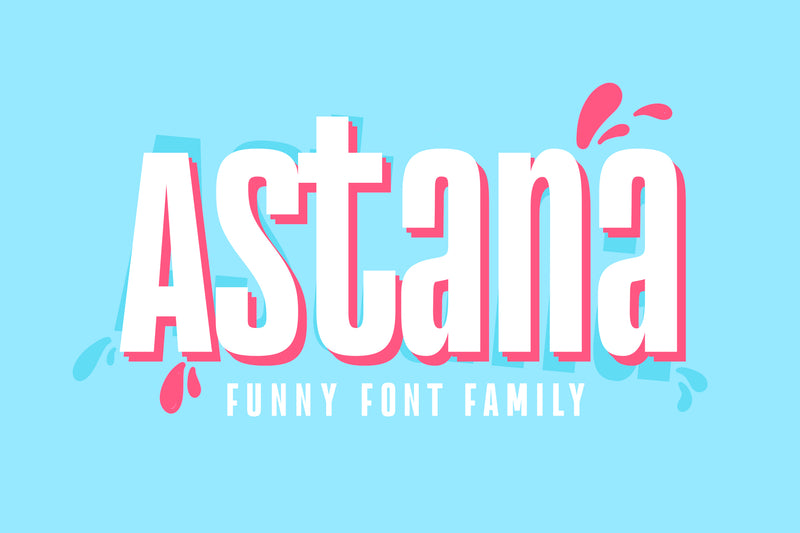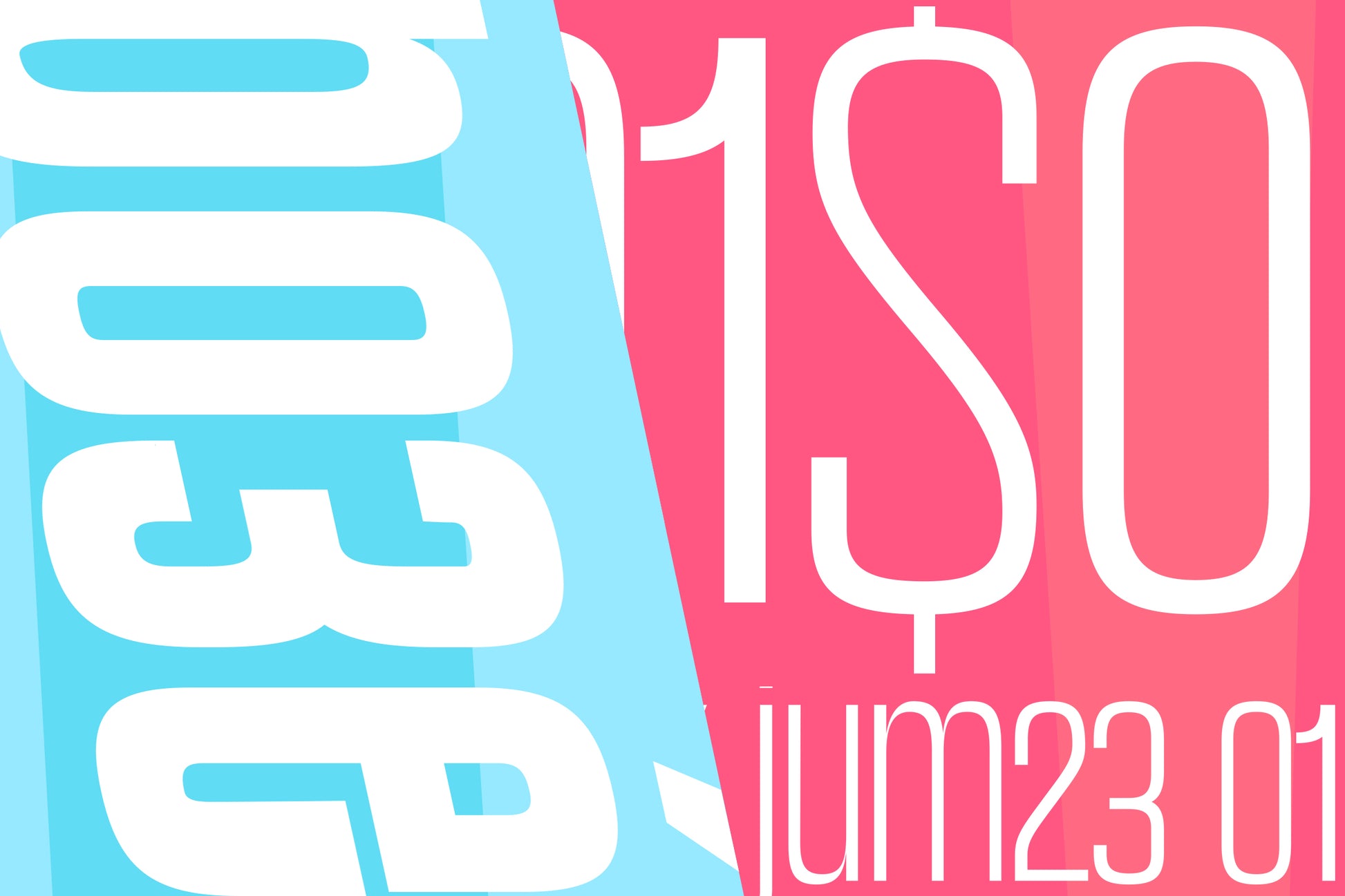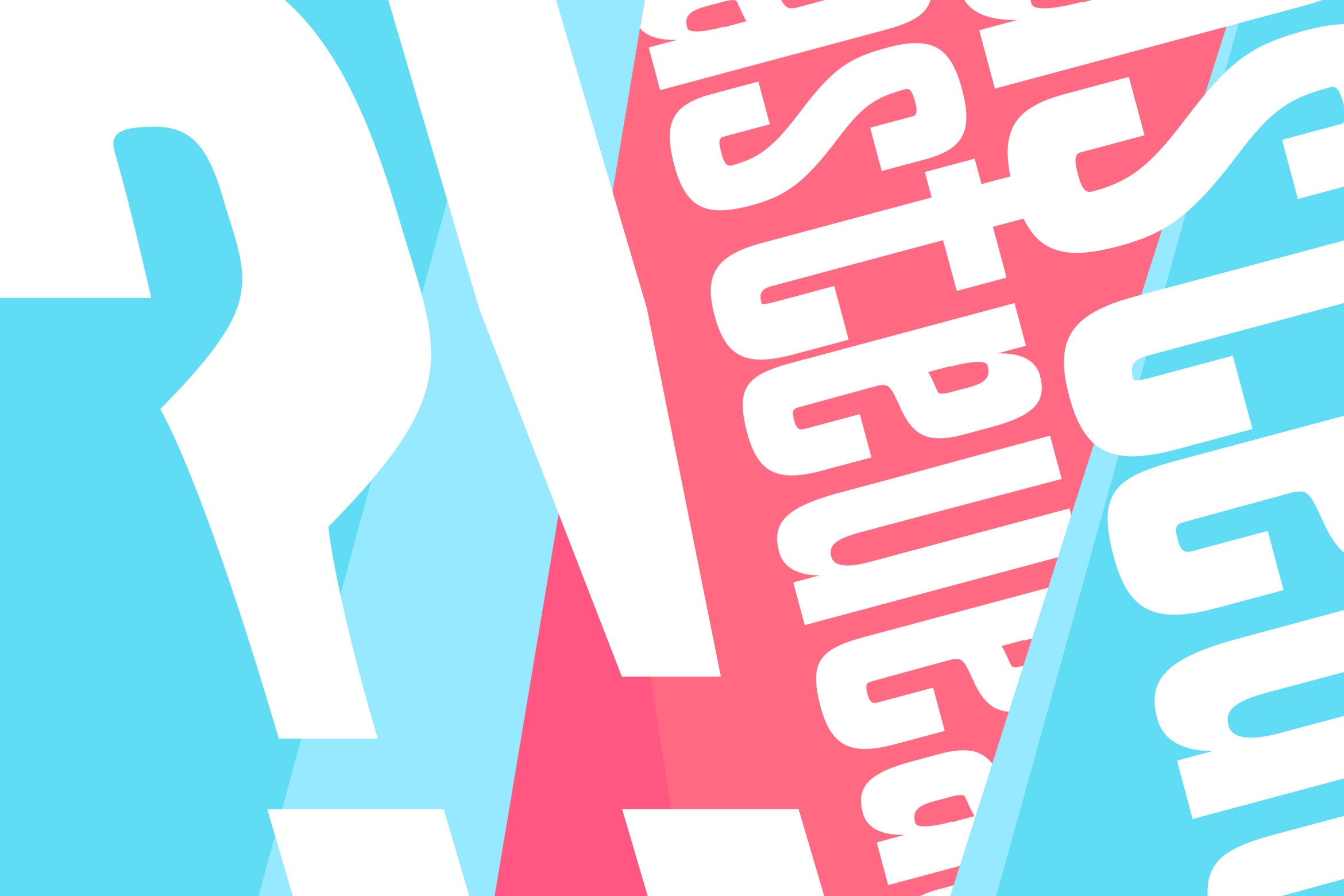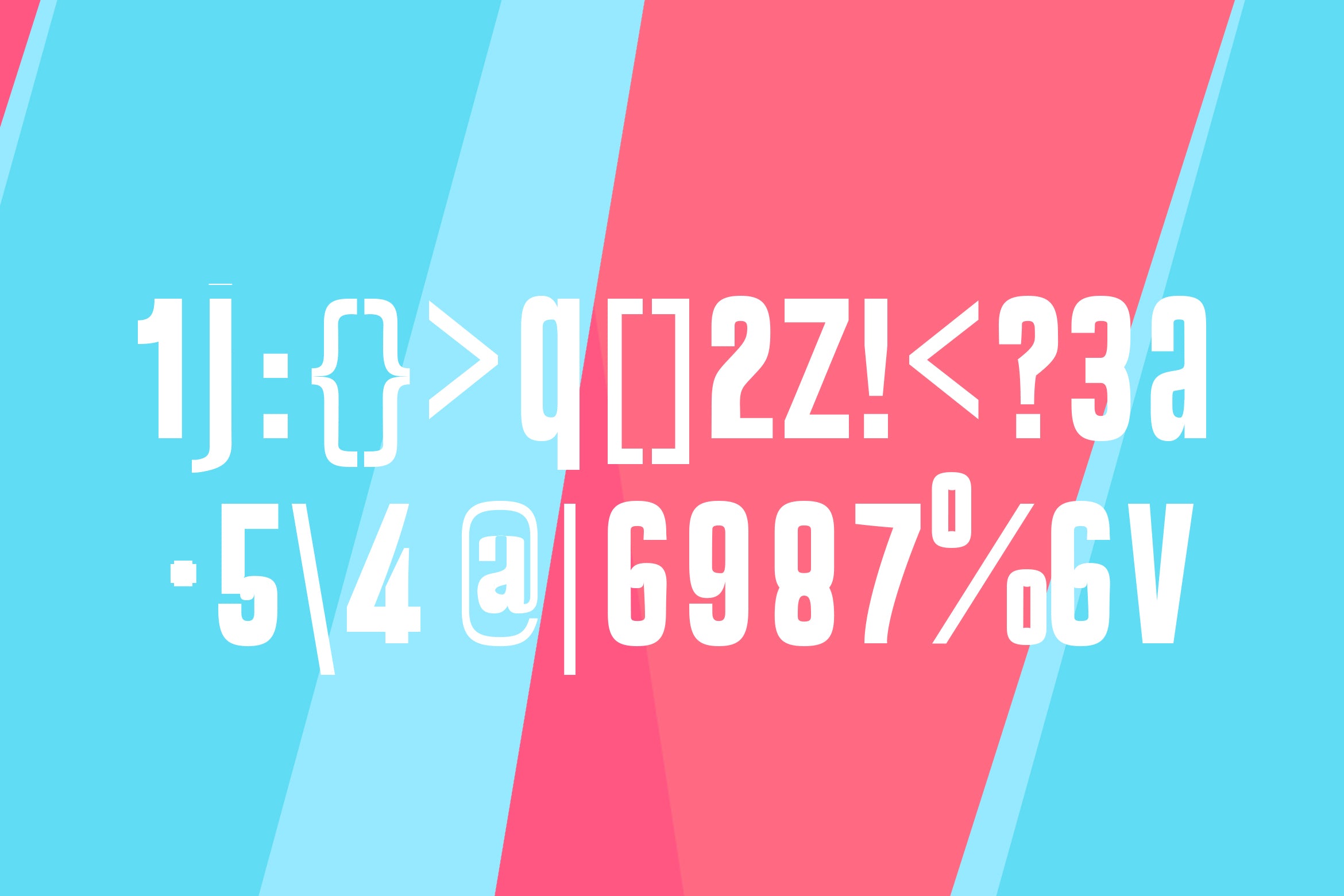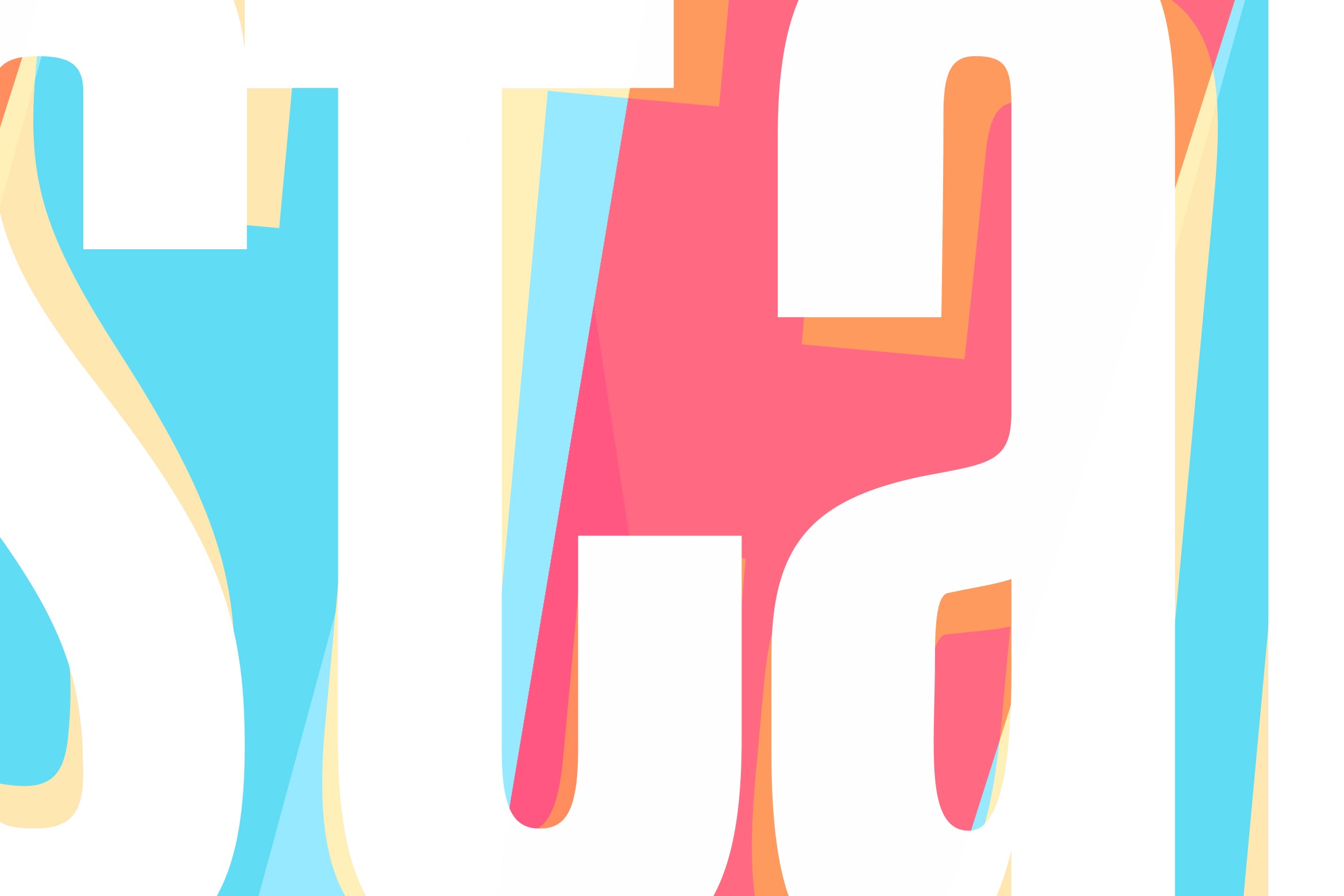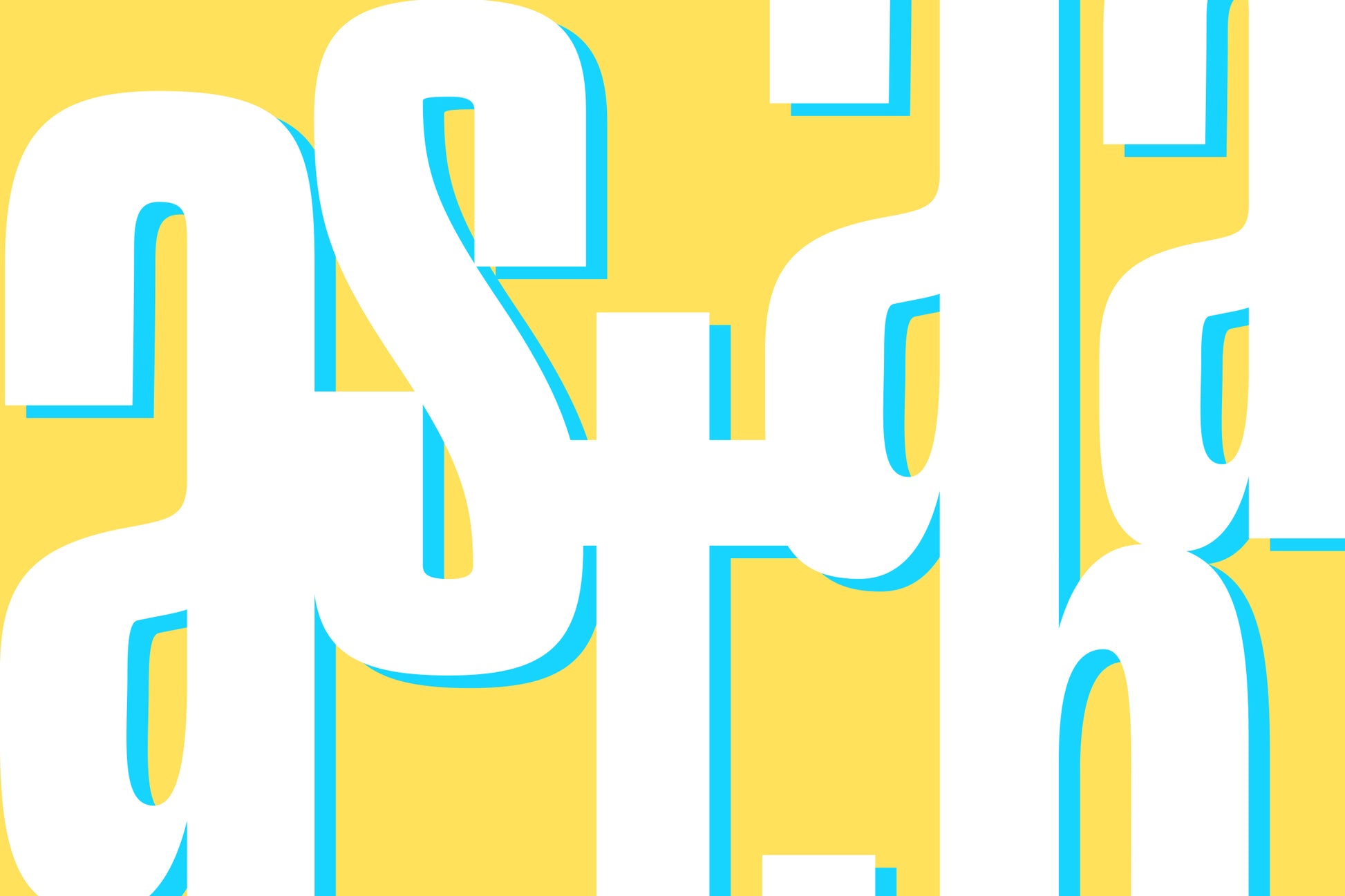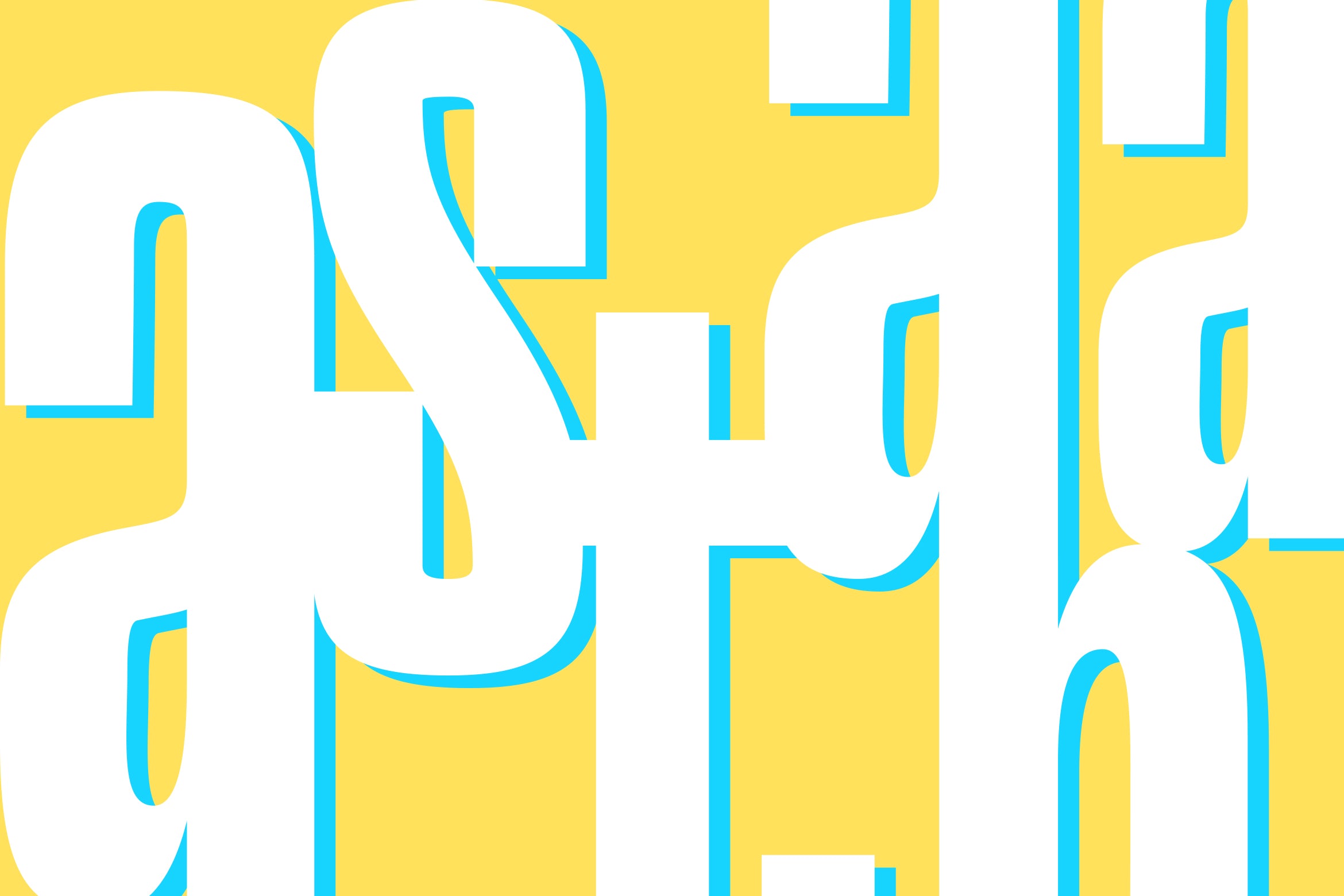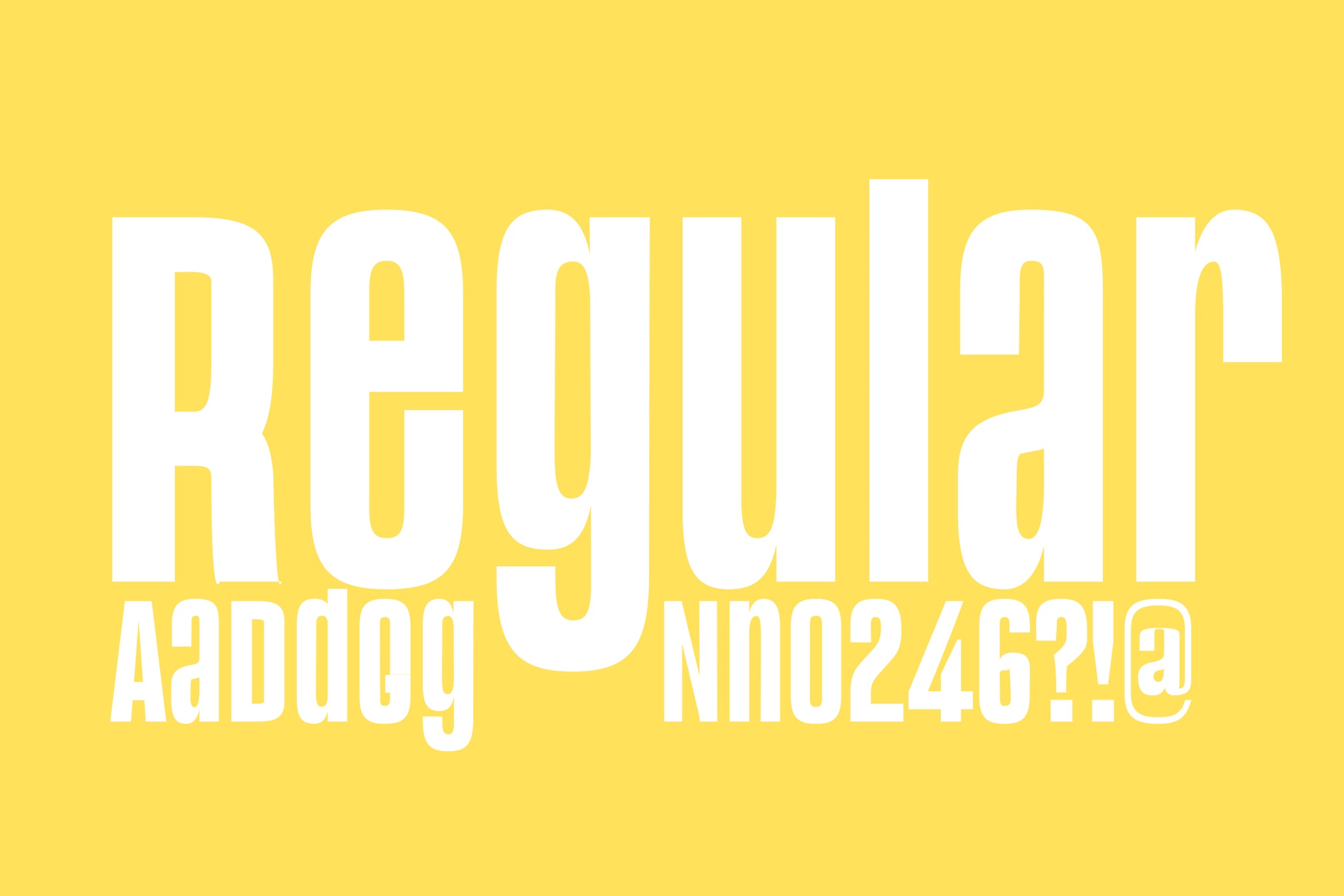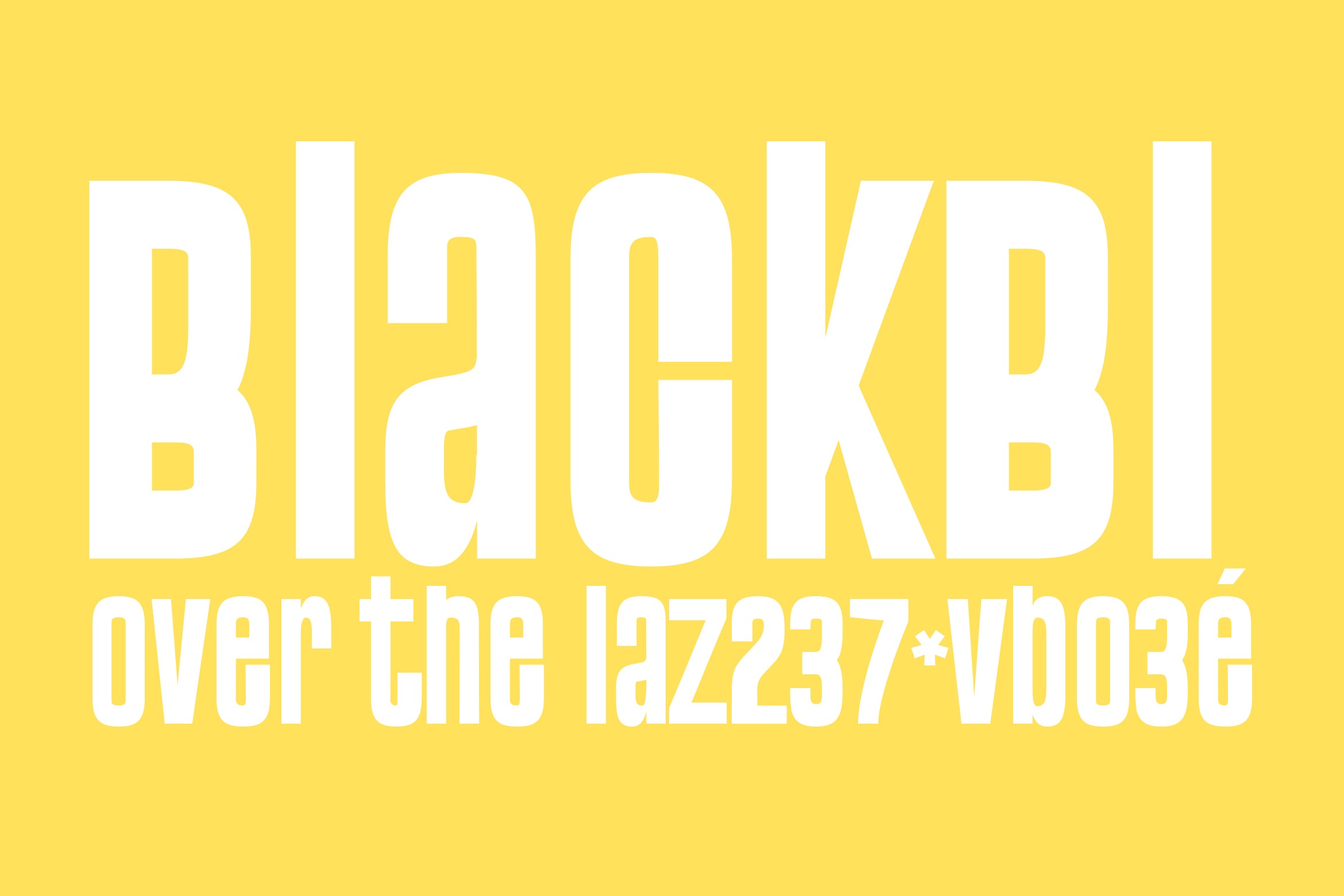
Astana Font
Astana is an funny font family designed for headlines, titles, posters and book covers . It has his own unique style in expressed perfect condensed forms, inspired by the child fonts and and strong geometric typefaces.
Astana is ideal for display text, print and and also for user interfaces, mobile devices, especially web design creation and posters, with a set of optimal characters for your design in any layout.
It looks especially great in large scale, although it still carries it at smaller point sizes.
*Astana Black.otf Black fashioned typeface with a modern touch. Full set of uppercase and lowercase letters, international support, punctuation.
*Astana Regular.otf Regular fashioned typeface with a modern touch. Full set of uppercase and lowercase letters, international support, punctuation.
*Astana Thin.otf Thin fashioned typeface with a modern touch. Full set of uppercase and lowercase letters, international support, punctuation.
*Astana Regular-Italic.otf Regular-Italic fashioned typeface with a modern touch. Full set of uppercase and lowercase letters, international support, punctuation.
*Astana Light-Italic.otf Light-Italic fashioned typeface with a modern touch. Full set of uppercase and lowercase letters, international support, punctuation.